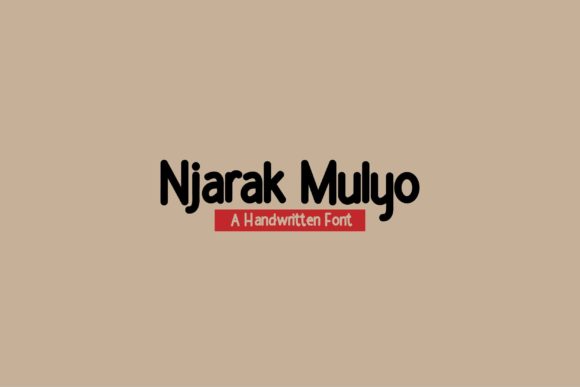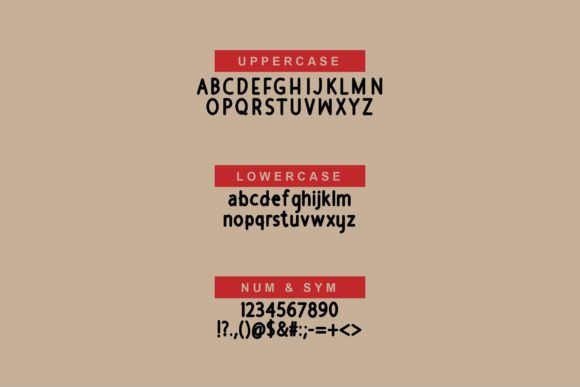
Njarak Mulyo Font
About Njarak Mulyo Font
Njarak Mulyo is a clean and friendly handwritten font. No matter the topic, this font will be an incredible asset to your fonts’ library, as it has the potential to elevate any creation.